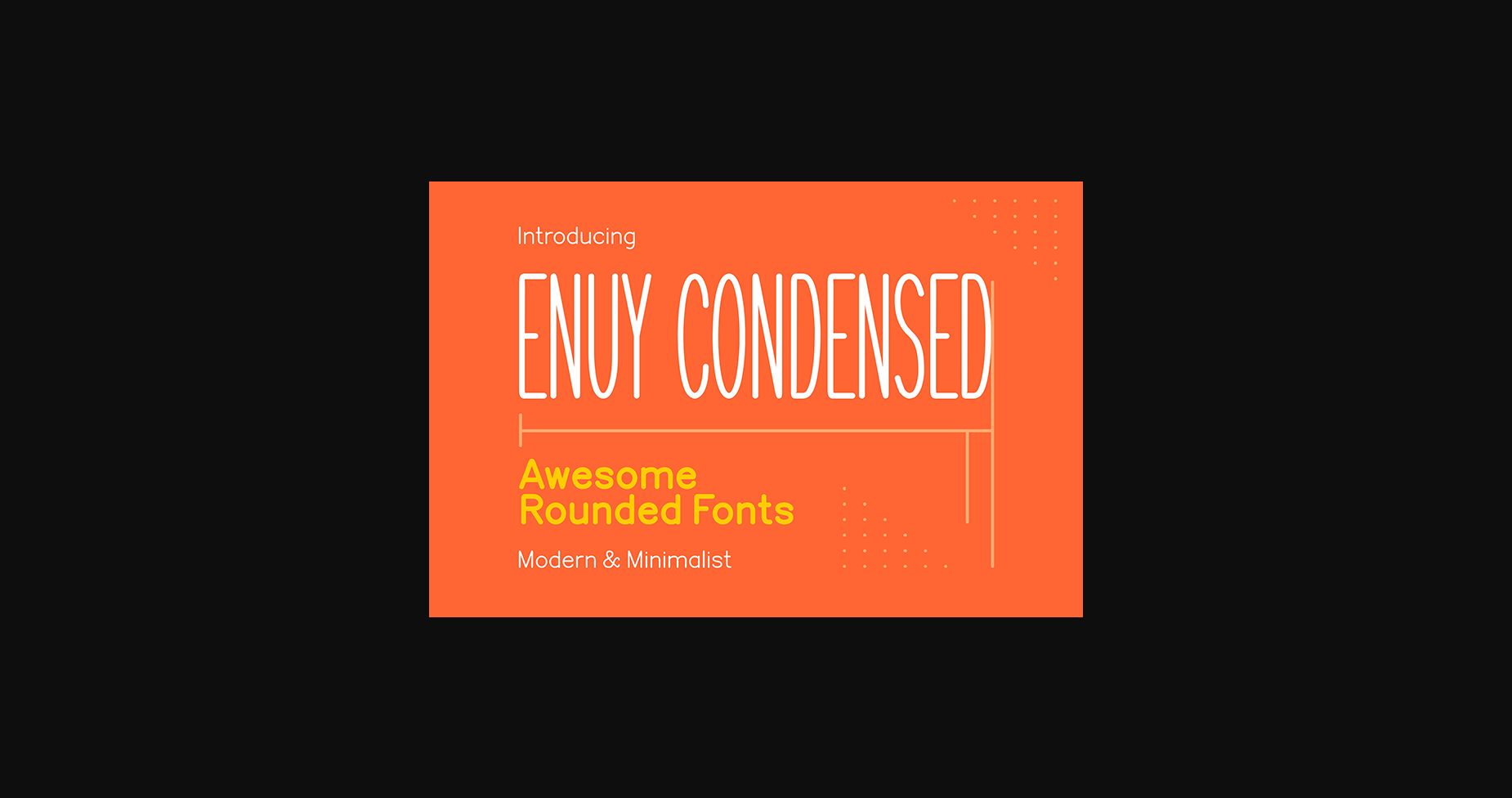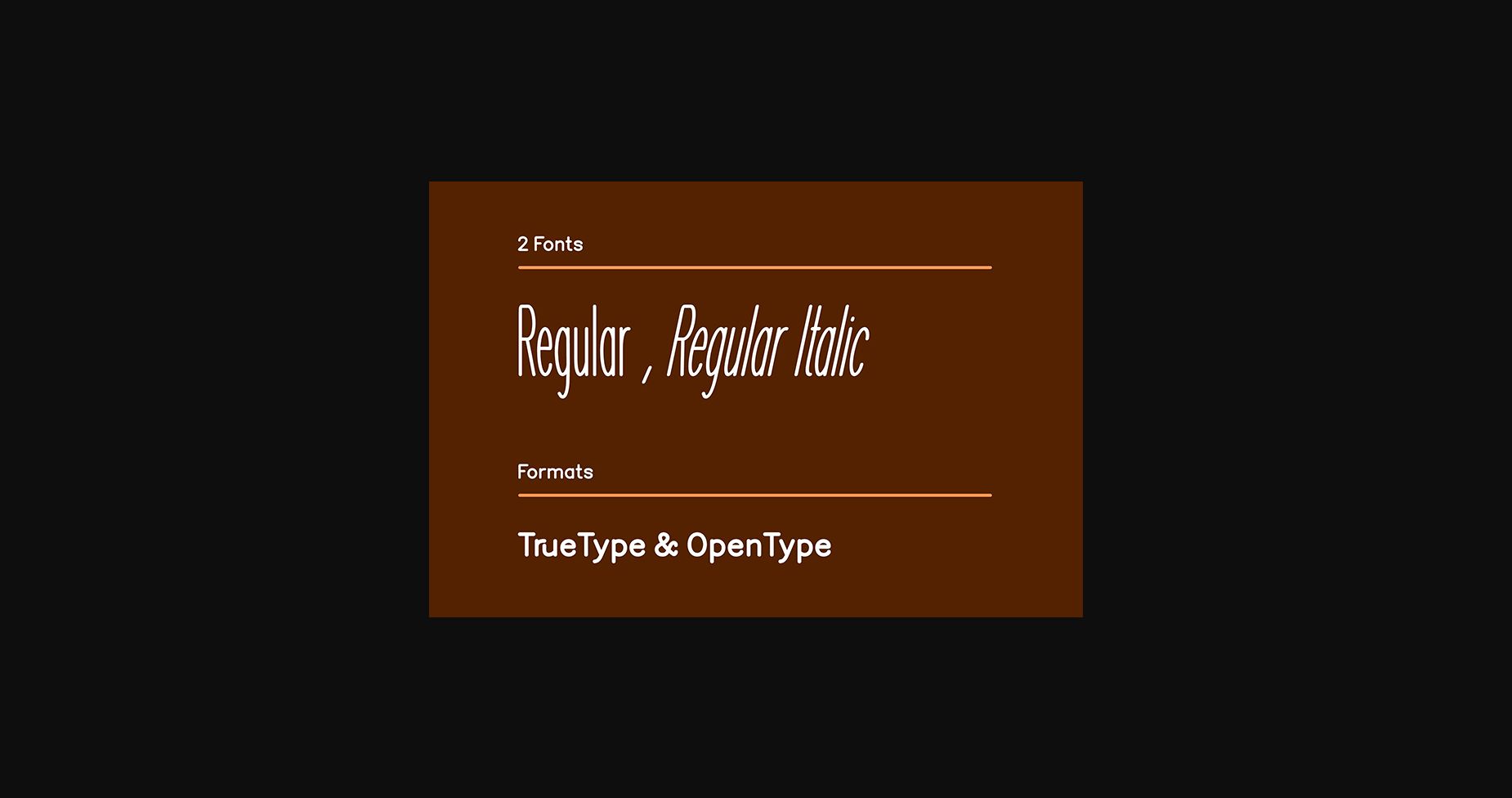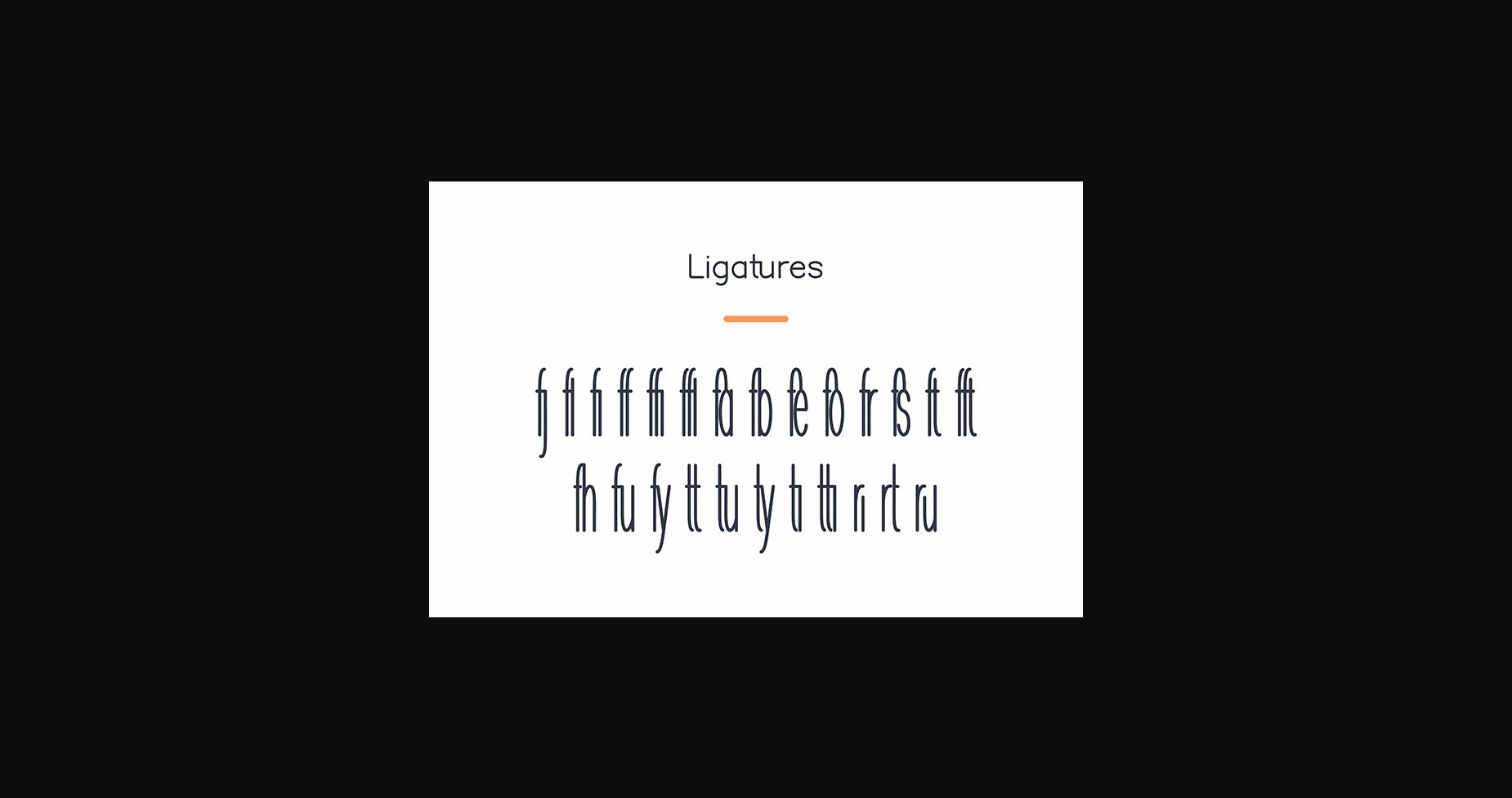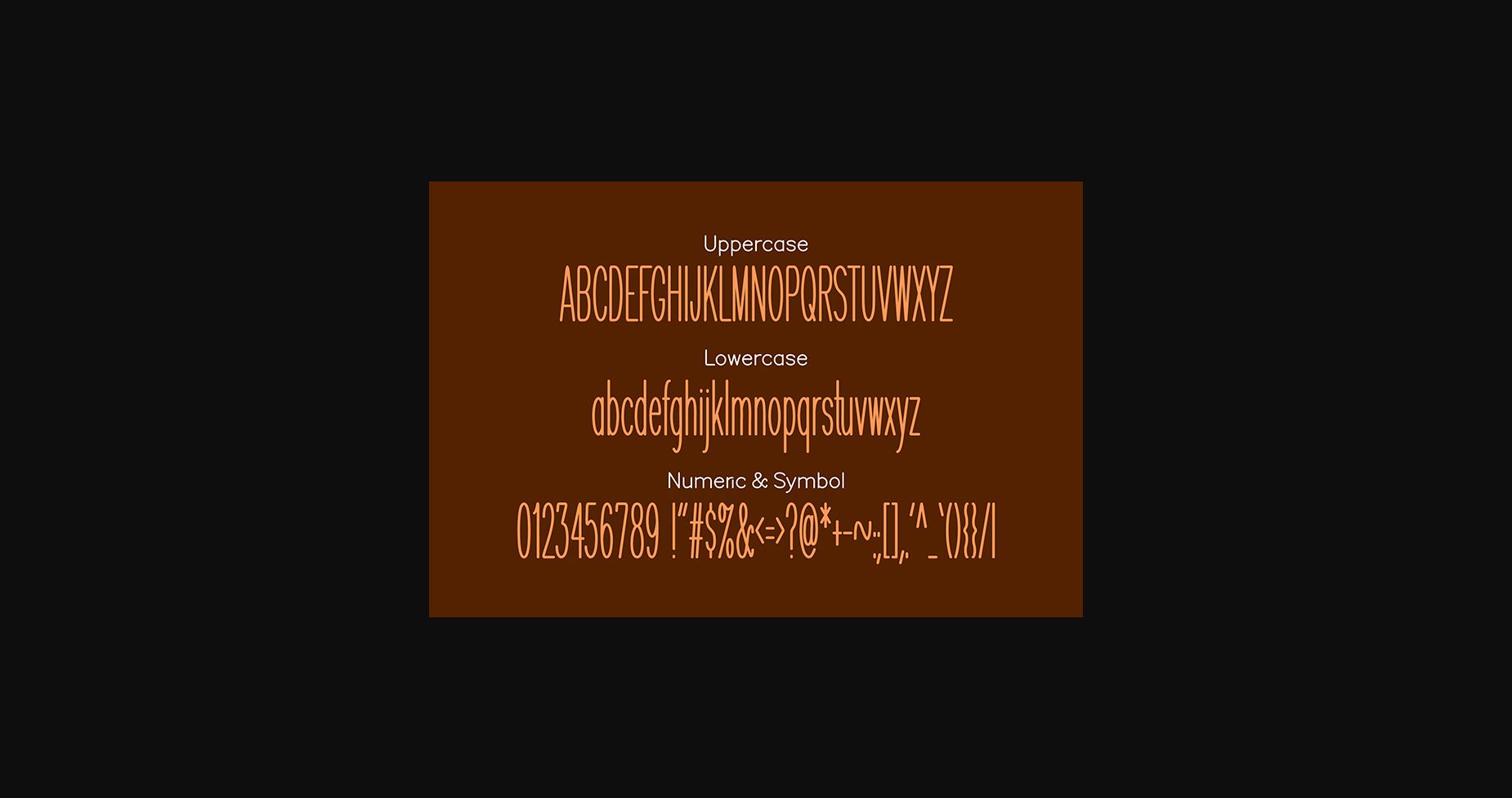
Enuy Condensed Font
About Enuy Condensed Font
Enuy Condensed Font is an awesome rounded sans serif font family that has the potential to make your designs looks Modern & Minimalist. This minimalist and clean vibe can easily apply to your favorite designs such as book covers, magazines, social media posts, invitations, and so much more!